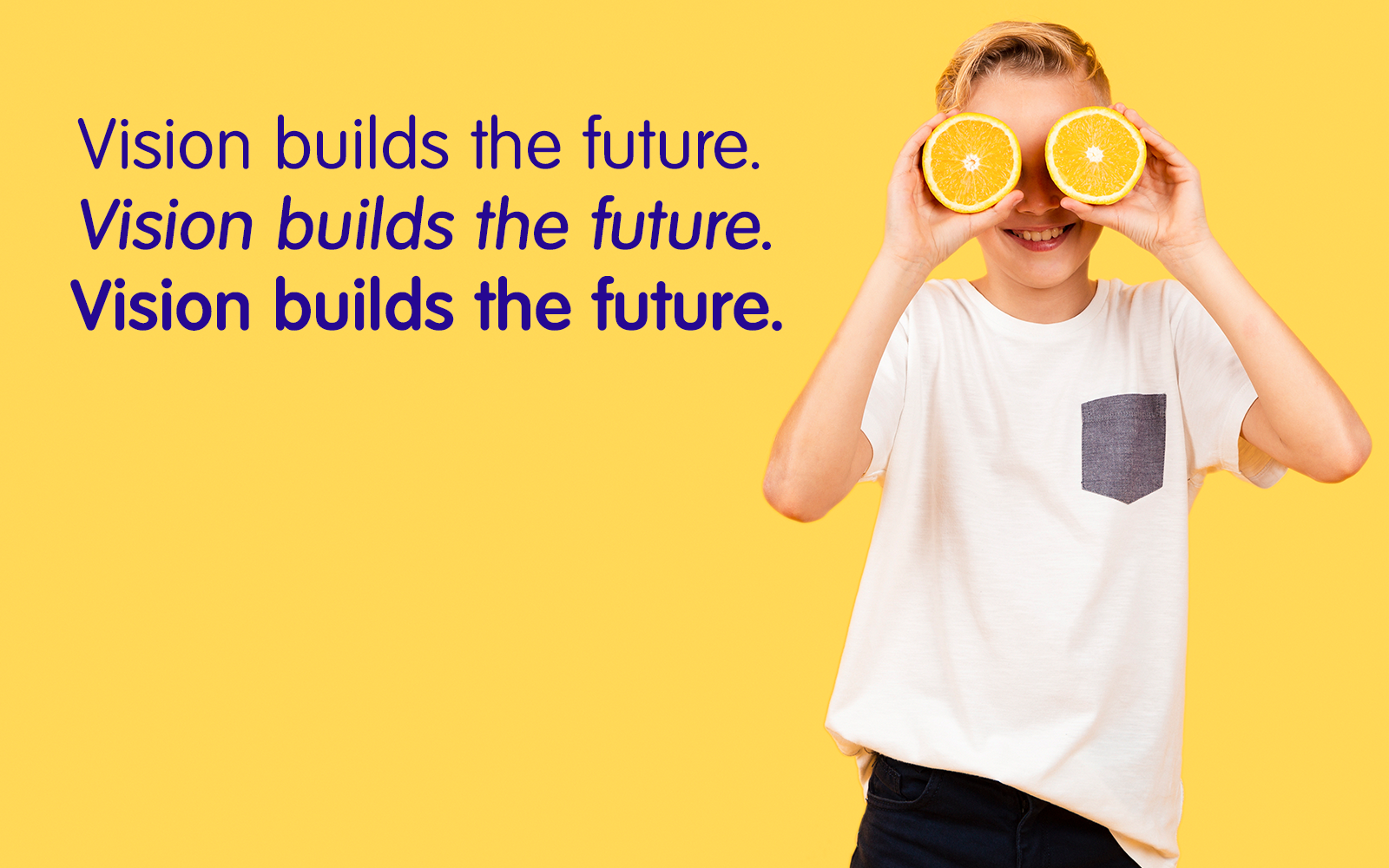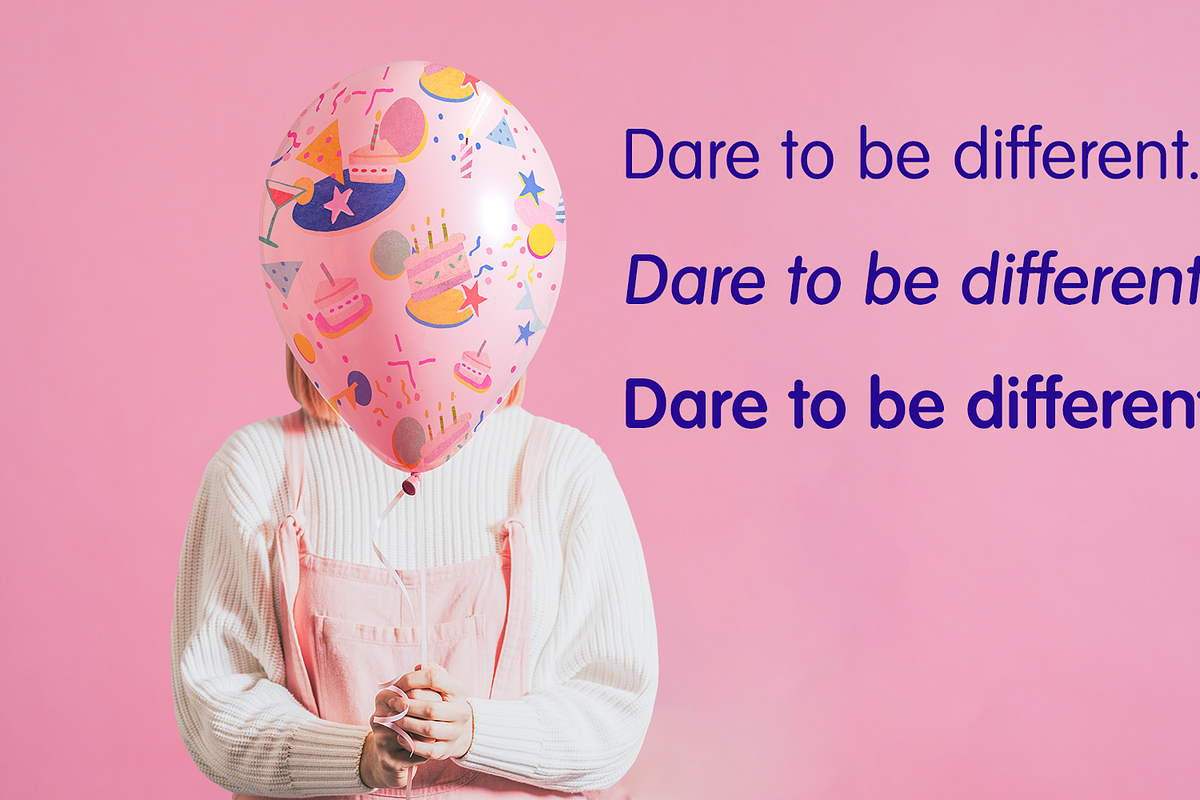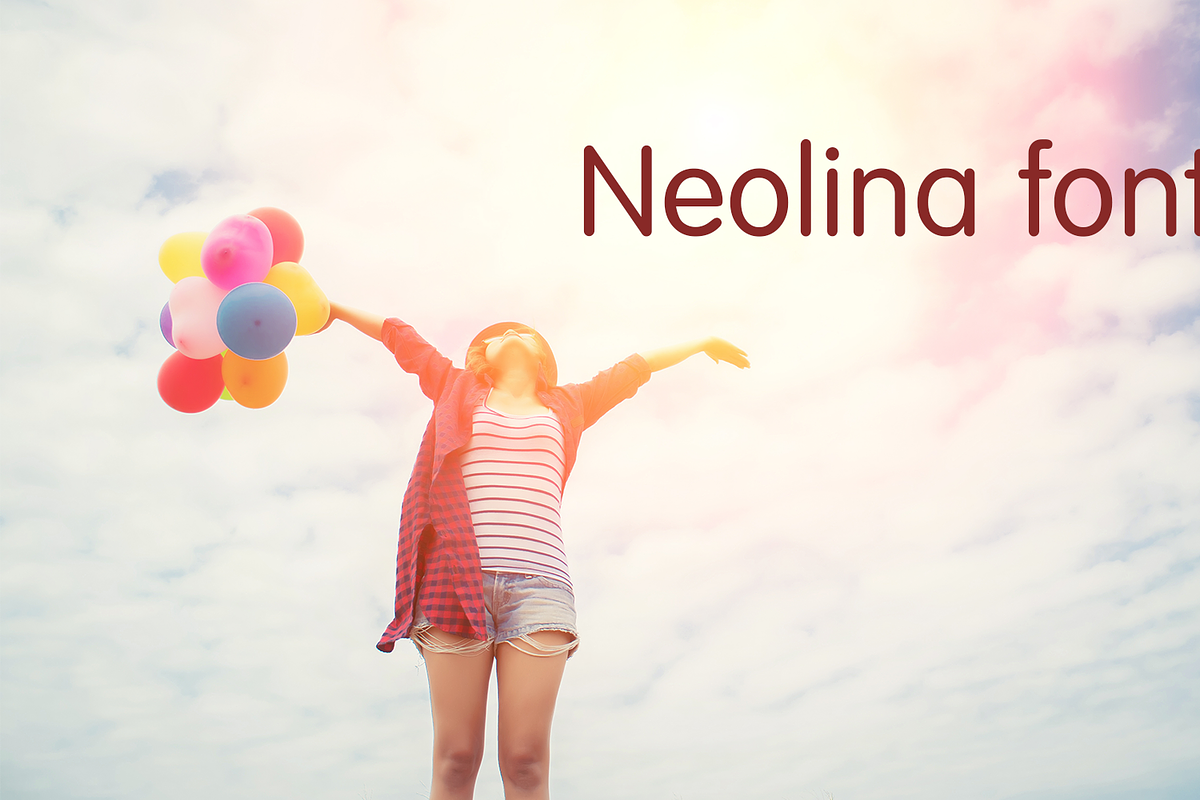
Meet Neolina — the font where European finesse meets modern clarity.
Designed to elevate your brand with confidence and elegance.
Each letterform is refined to communicate trust and professionalism.
Perfect for logos, ads, digital interfaces, and sophisticated design work.
Its balance and cleanliness captivate without overwhelming.
Neolina — the font that speaks the language of success.